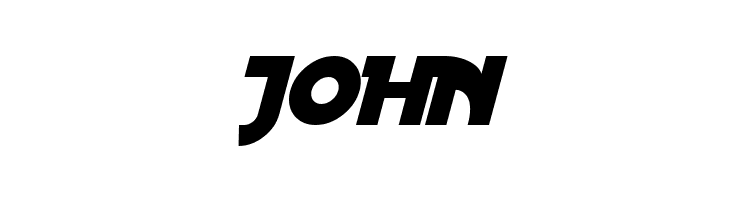
Grim Ghost Light Italic Font
- Font: Grim Ghost Light Italic
- Weight: Light Italic
A futuristic, angular italic font with bold strokes and a dynamic slant.